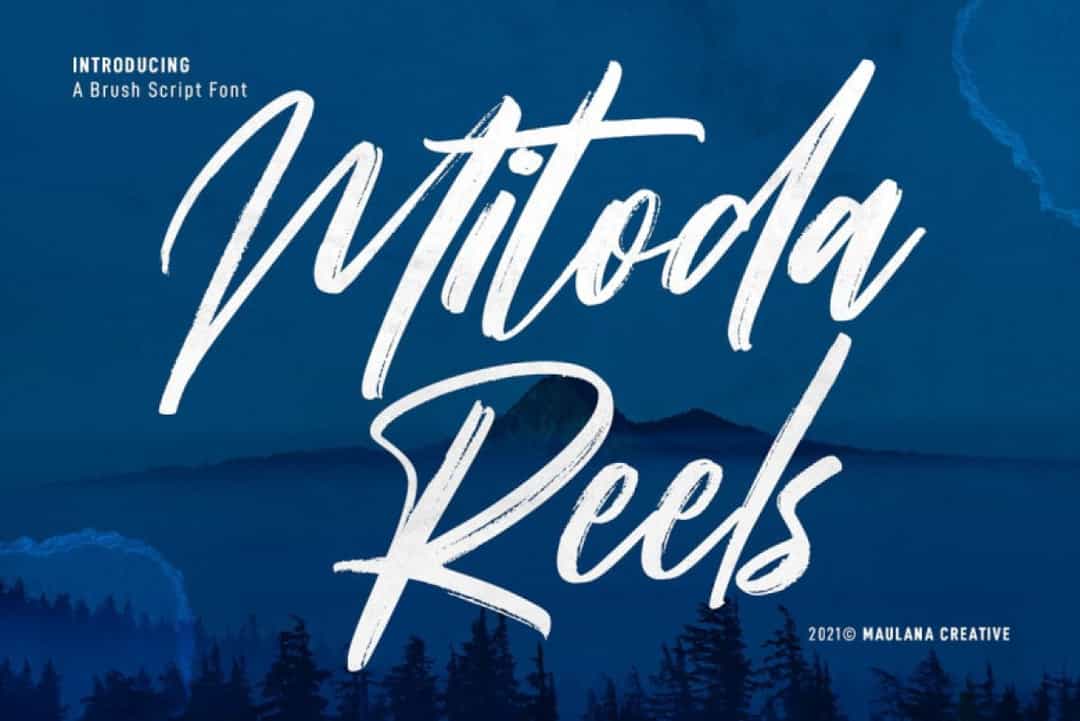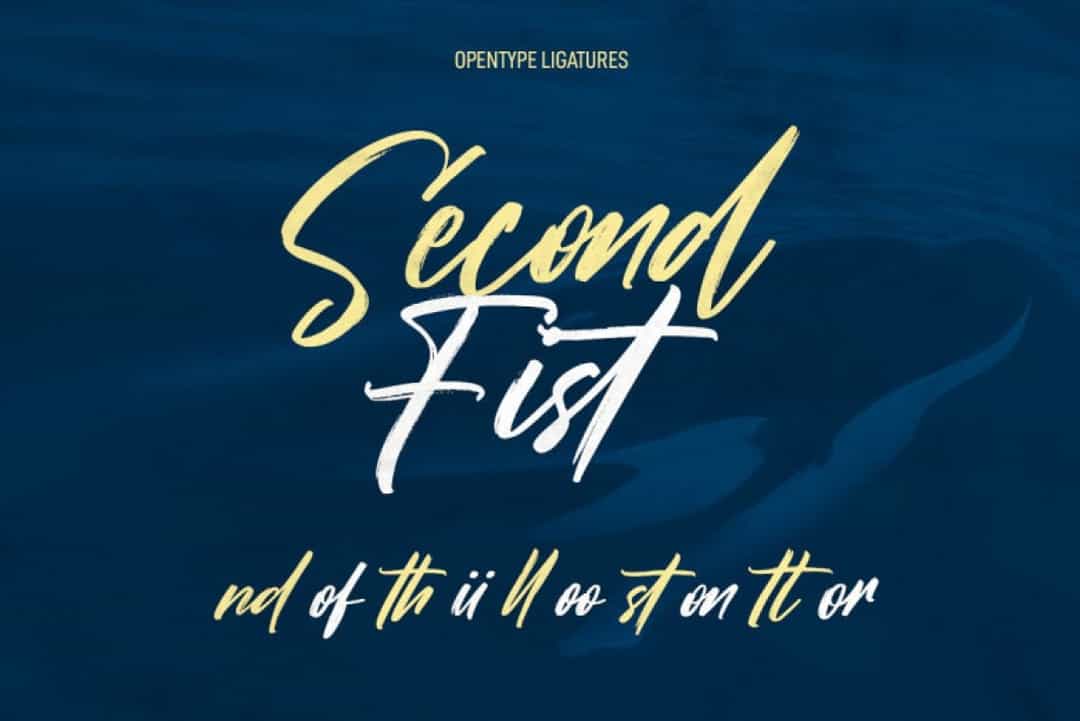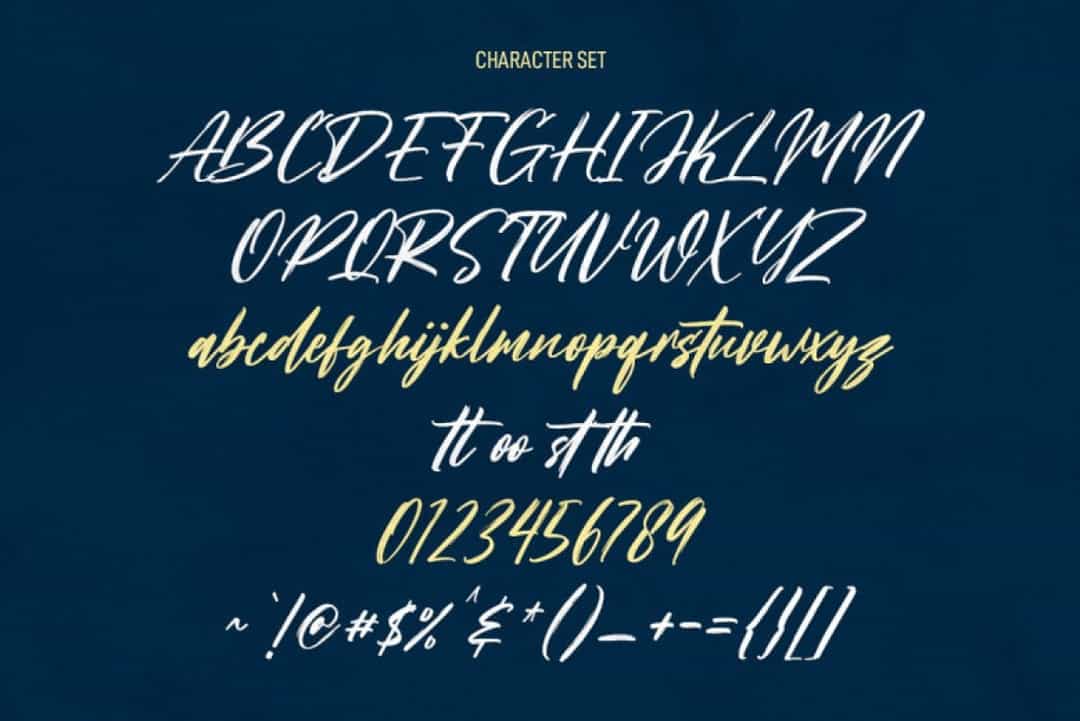
Mitoda Reels font is an elegant brush script font. Featuring rough brush strokes for amusement and lowercase alternatives for extra creativity, as well as ligatures and lowercase alternatives, Mitoda Reels supports over 100 languages for multilingual support.